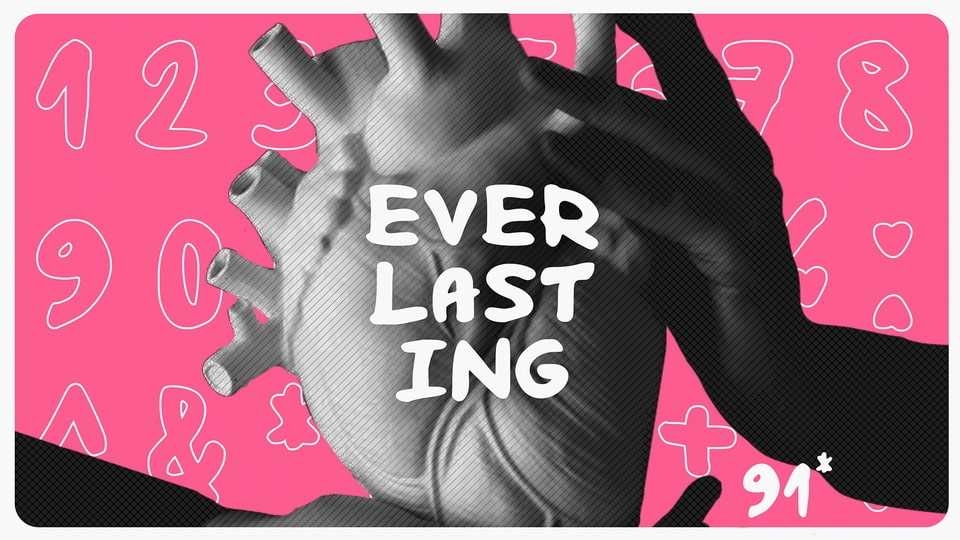
Download Everlasting font, a delightful hand-drawn typeface that exudes simplicity, casual charm, and an organic feel. Each character in Everlasting font is crafted with a light touch, as if drawn by hand with carefree strokes, creating a typeface that feels approachable and whimsical.